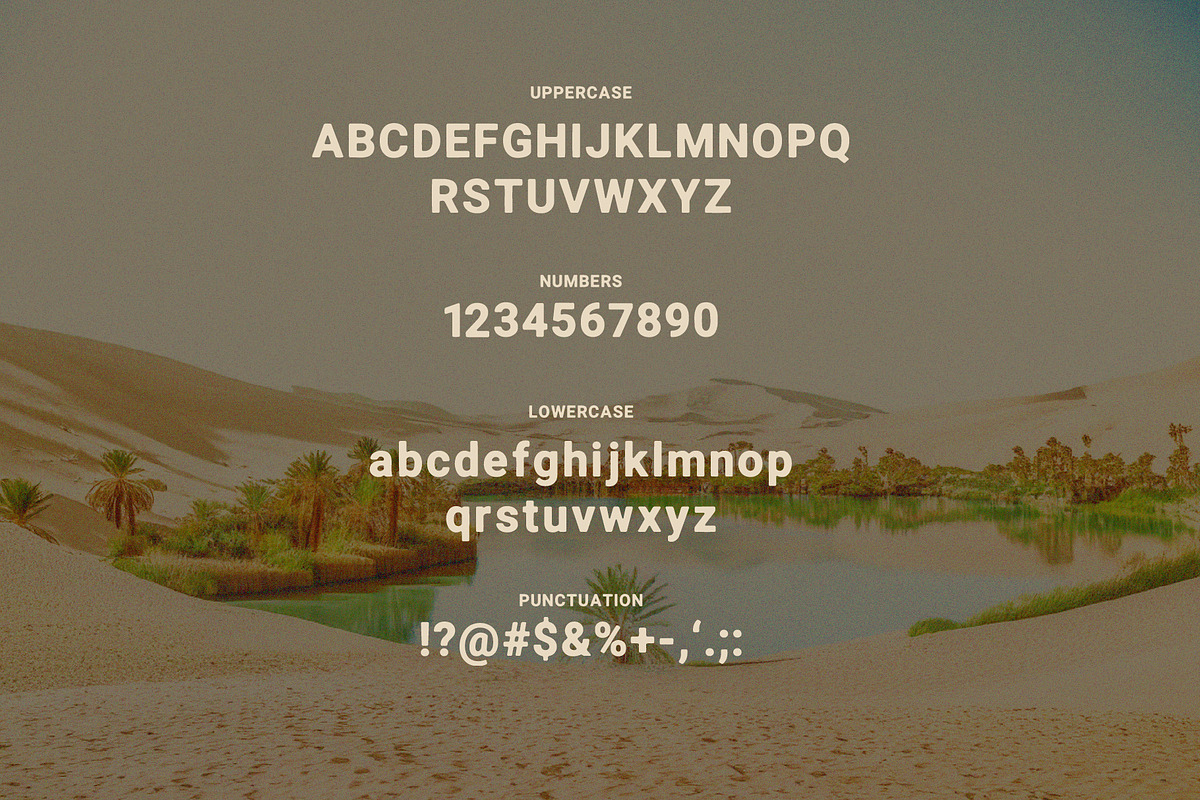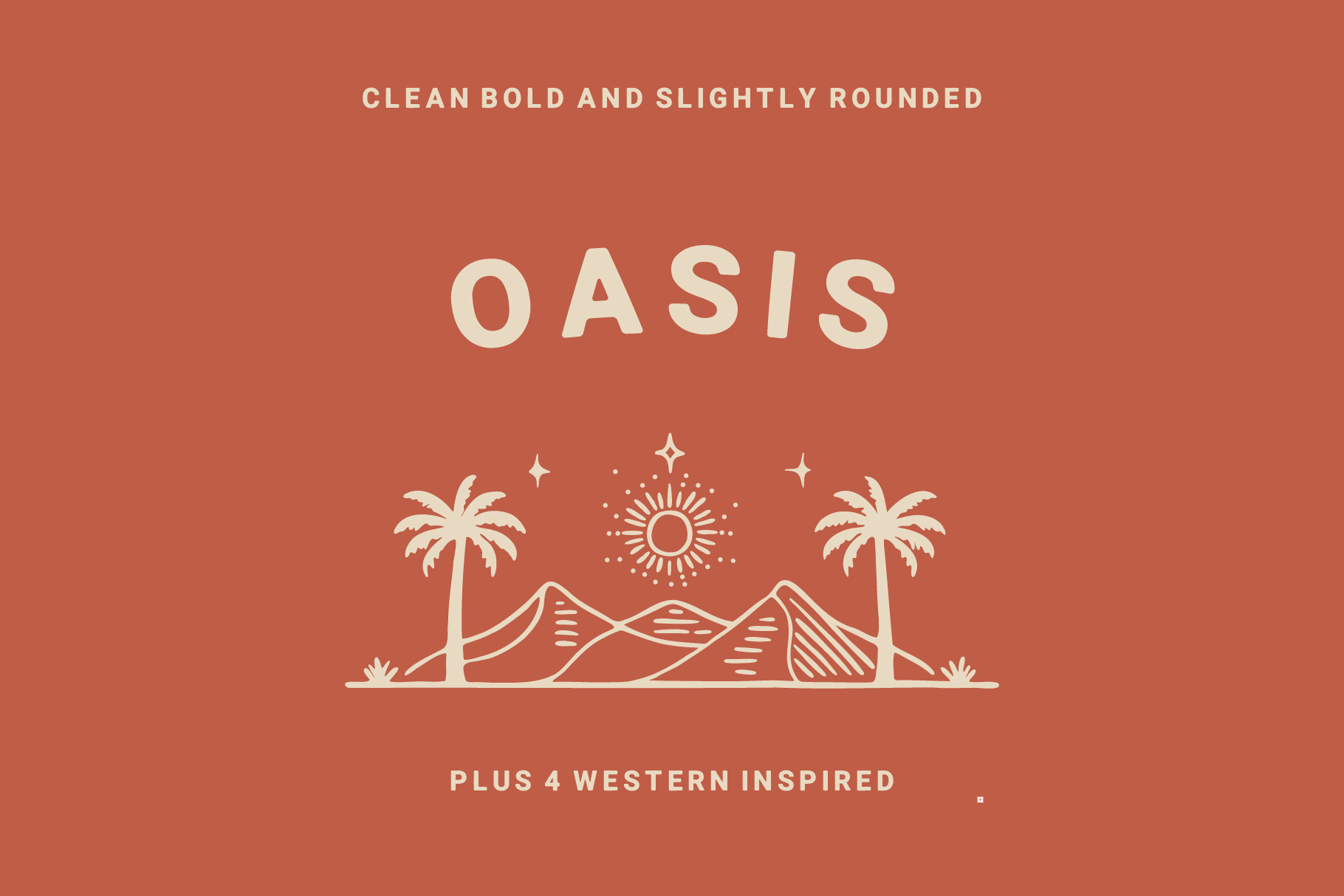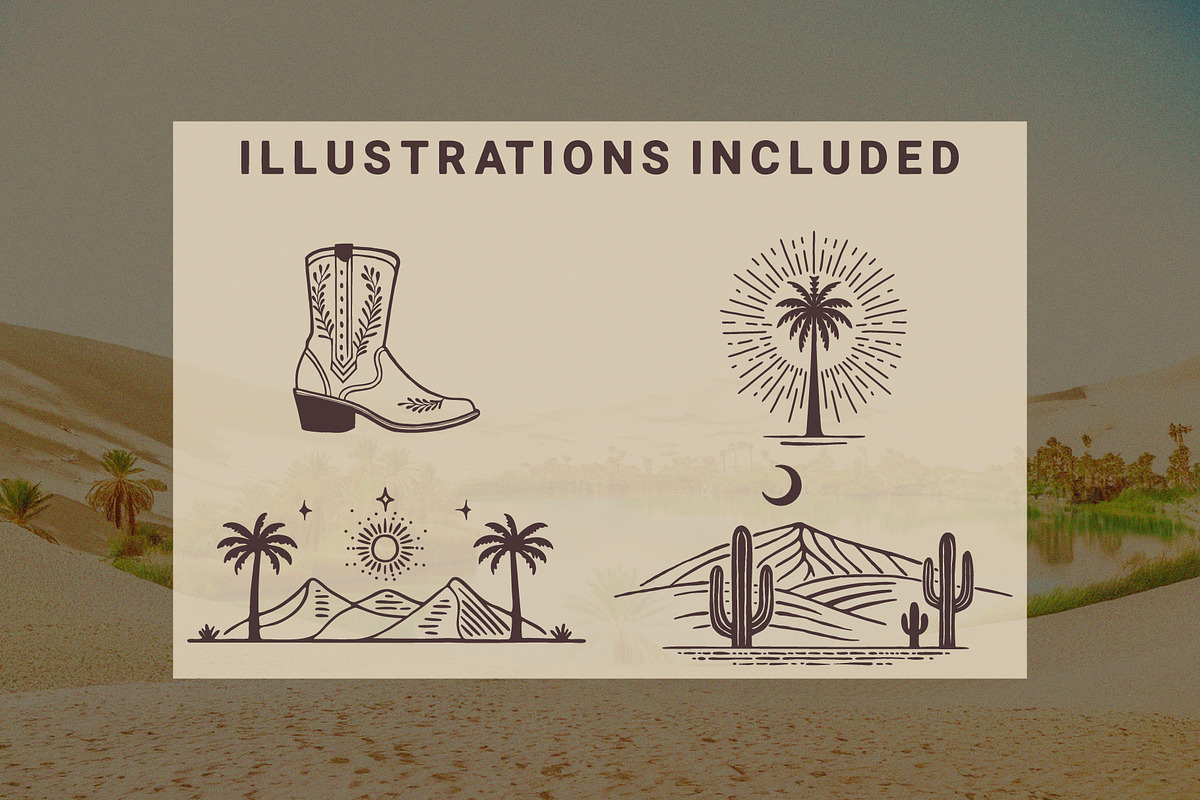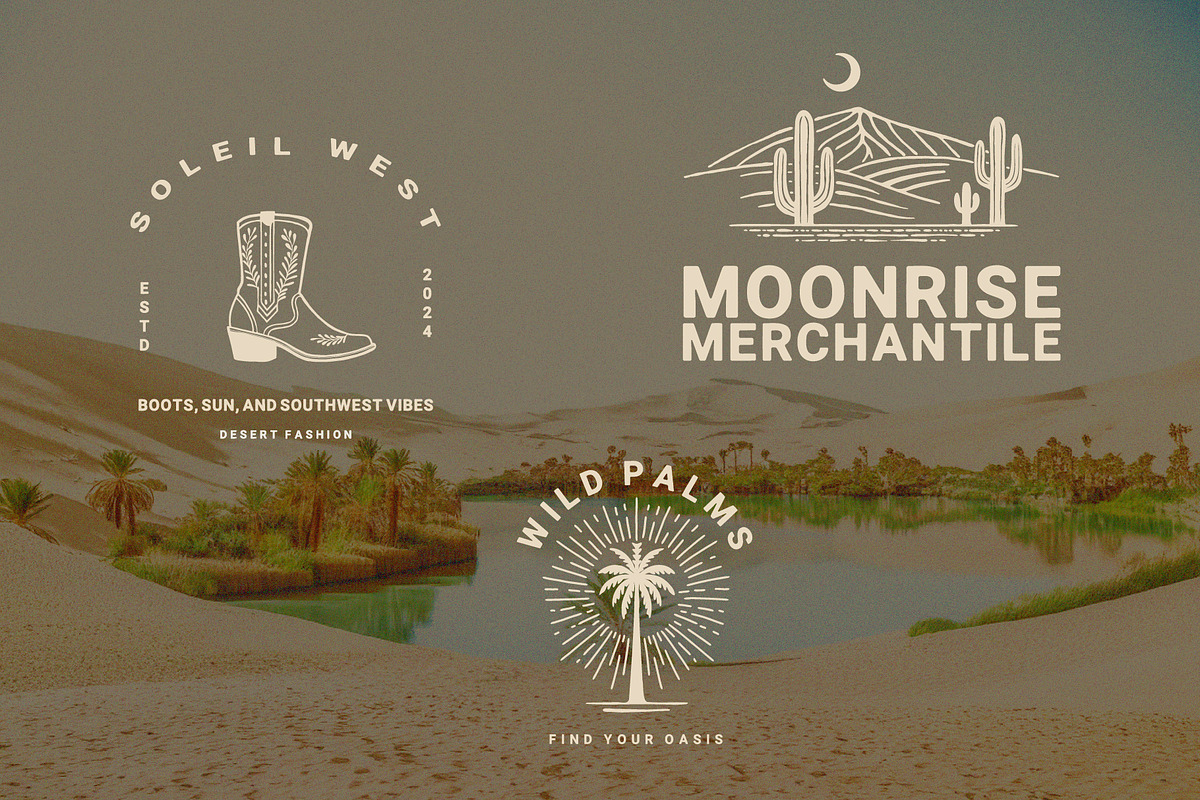
Oasis Font + Illustrations
Oasis is a versatile and elegant font inspired by the classic Roboto typeface. This font features bold, slightly rounded letters that provide a modern yet approachable feel. It offers a clean and straightforward look, ideal for a wide range of design projects.
Perfect for both digital and print projects, Oasis brings a touch of sophistication and clarity to your designs. To enhance your creative toolkit, this package includes four beautiful illustrations: a palm tree with starburst lines, a stylish cowgirl boot, a scenic landscape featuring mountains and palm trees, and a dreamy night scene with cacti and a moon. These illustrations are available in JPG, PNG, and SVG formats.
Whether you're creating logos, branding materials, or website content, Oasis provides the flexibility and style you need. Get creative and elevate your design projects with the Oasis font and accompanying illustrations!